Cool Futuristic Google Fonts References
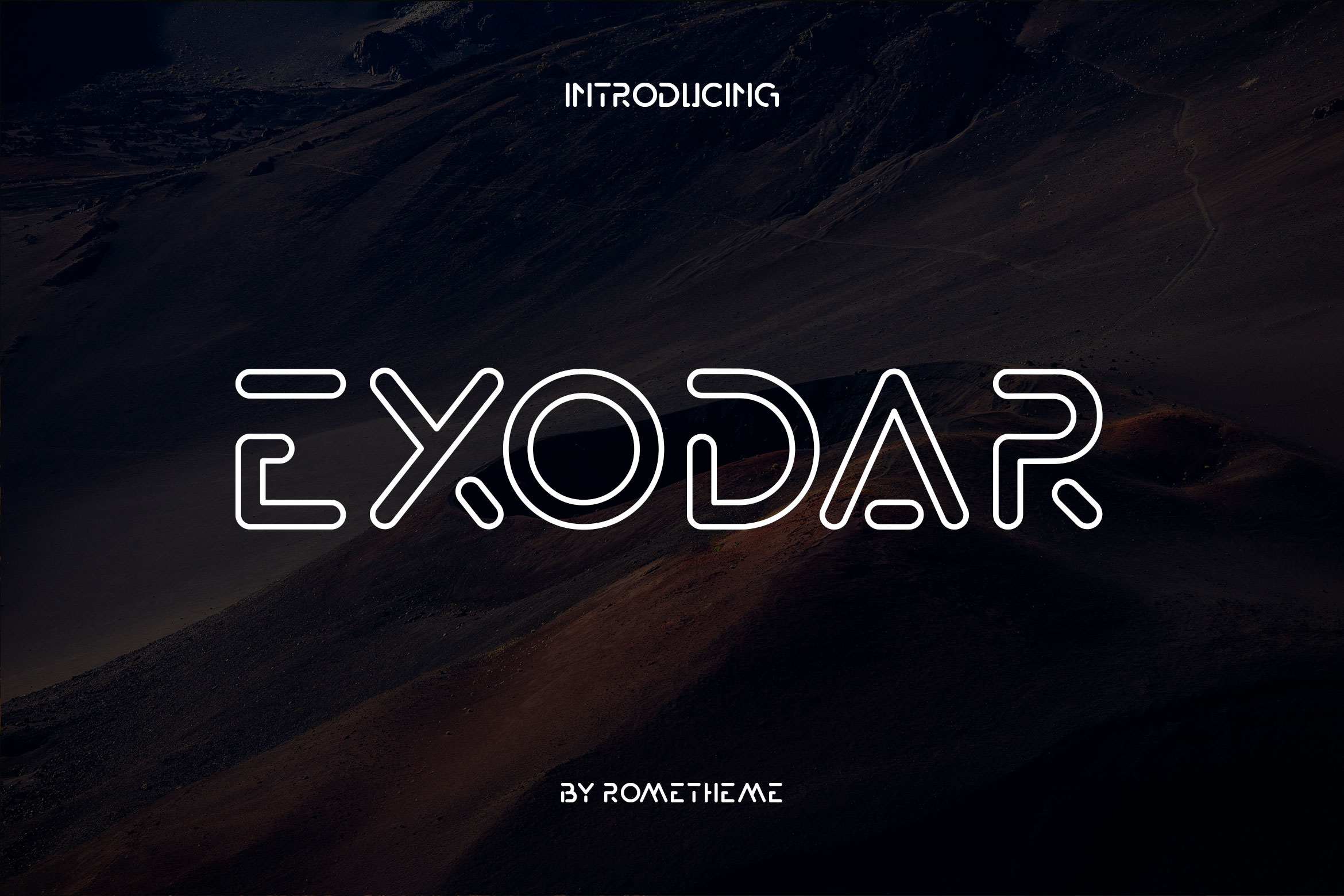
This futuristic font is a classic for science fiction posters! It is an excellent fit for small sizes and big. It boasts a minimalist design with unique letterforms that play with our.
Web futurism is a beautiful headline font with a distinct futuristic design but maintains readability. Web cosmos is a futuristic block letter font with rounded edges, and narrow spacing to make room for the wide characters. Rgb (233, 230, 225) additional color (s):
It Boasts A Minimalist Design With Unique Letterforms That Play With Our.
Web first up on our list is anurati, a lovely futuristic typeface by emmeran richard that banks on the law of closure to add visual interest to its letterforms. Web top 44 best futuristic fonts 1. Exo exo is a contemporary geometric sans serif typeface that tries to convey a technological/futuristic feeling while keeping an elegant design.
Web Nova Mono, A Monospaced Font, Features Proportionately Spaced Letterforms.
It is an excellent fit for small sizes and big. Web making the web more beautiful, fast, and open through great typography Genos genos is a modern display font with a futuristic feel.
Web Futuristic Fonts Are Great For Technology Type Projects And Convey A Sense Of What’s To Come.
Use it as a display typeface set. A b c d e f. Web astro is a futuristic font that comes with a design inspired by cyberpunk and robotic elements.
Rgb (33, 29, 30) background color: Although cosmos can be used for virtually. This font comes in multiple styles featuring extrude, cable, and extrude.